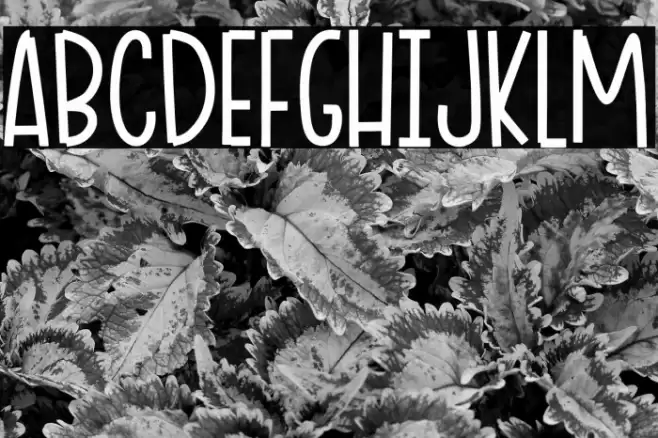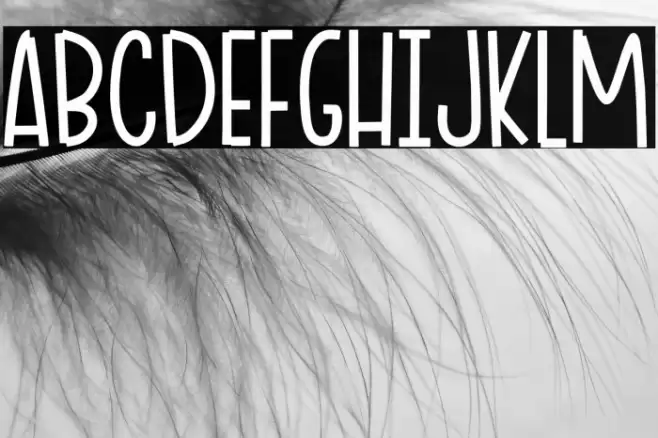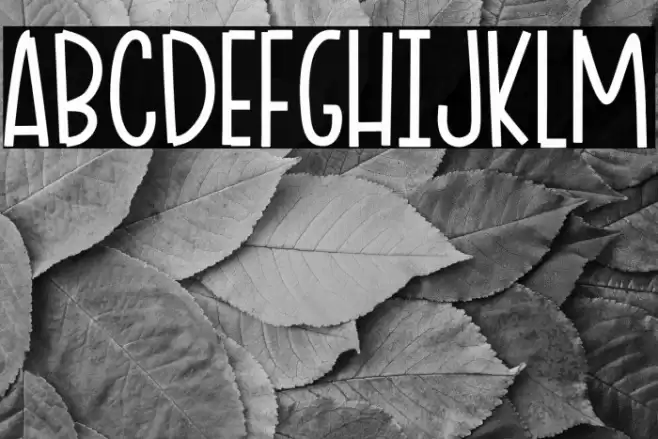
Ciao Adios Font
Ciao Adios Description
This font features a playful and casual handwritten style, characterized by its tall, narrow letters with a slight slant. The strokes are consistent in width, giving it a uniform appearance while maintaining a hand-drawn feel. The uppercase and lowercase letters are distinct, with the uppercase being slightly more elongated. Numbers are clear and easy to read, matching the overall aesthetic. The font exudes a friendly and approachable vibe, making it suitable for informal and creative projects.
A playful, handwritten font with tall, narrow letters and a casual style from Uncategorized fonts.
- Font: Ciao Adios
- Proposed Projects: Ideal for greeting cards, children's books, posters, and social media graphics.
- Overall Style: Casual
- Use Case: Headlines, Informal text, Creative projects